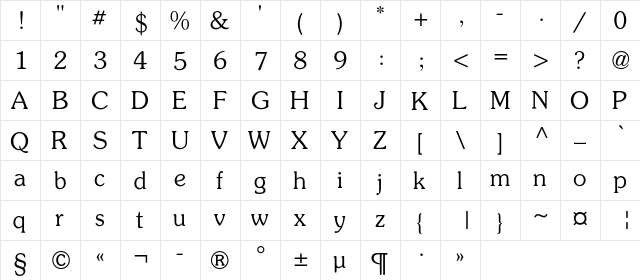
AGPresquireC Regular
Design Context for AGPresquireC Typeface
AGPresquireC offers clean, dependable letterforms without strong stylistic allegiance, making it a practical choice for designers who need flexibility.